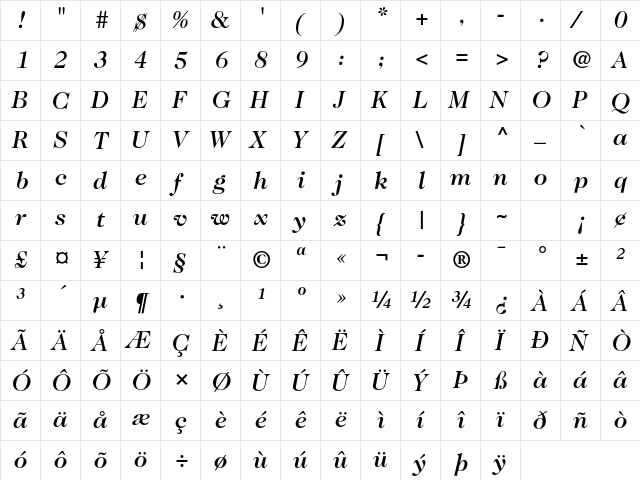
ITC Caslon 224 Std Medium Italic
| Designer | Ed Benguiat |
Design Context for ITC Caslon 224 Std Typeface
ITC Caslon 224 Std is a composed and adaptable typeface that performs quietly and consistently across a wide range of design contexts. The slanted form adds forward momentum and visual energy.
Pro Tip: Try ITC Caslon 224 Std for annotation and caption copy alongside an upright companion — the contrast in angle creates a dynamic but ordered typographic system.